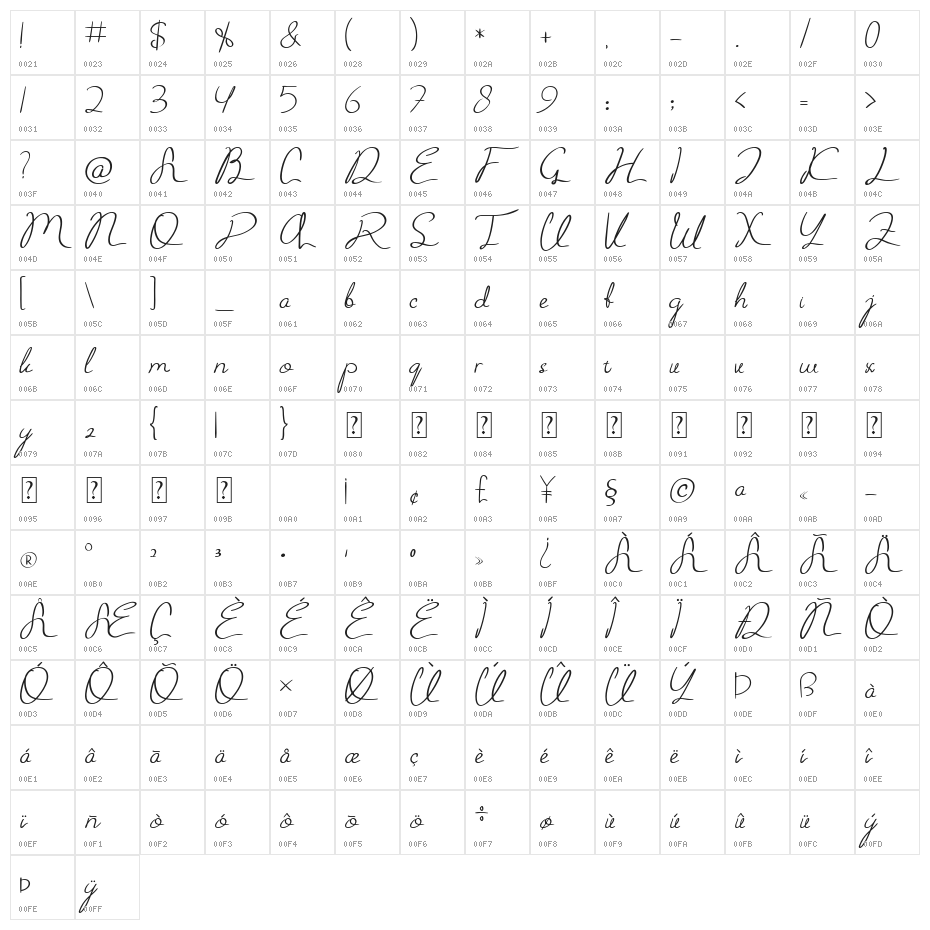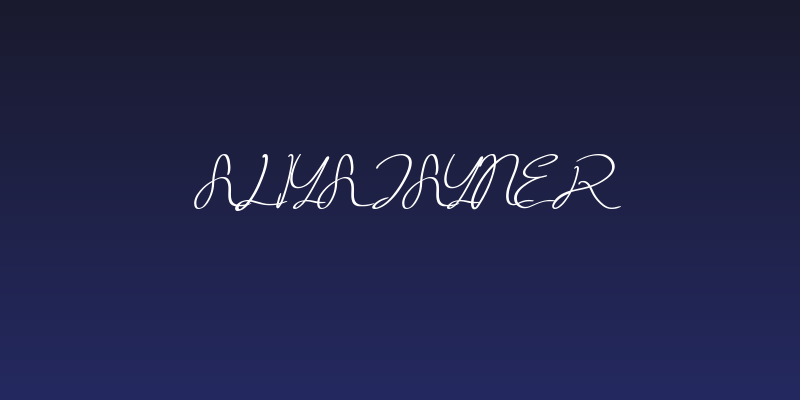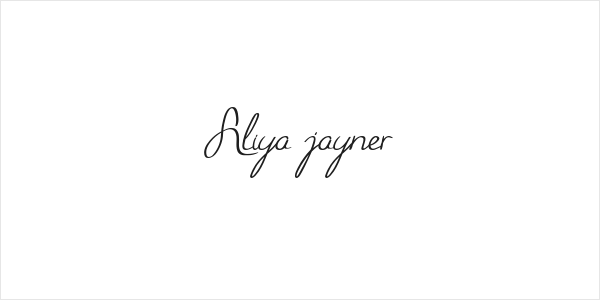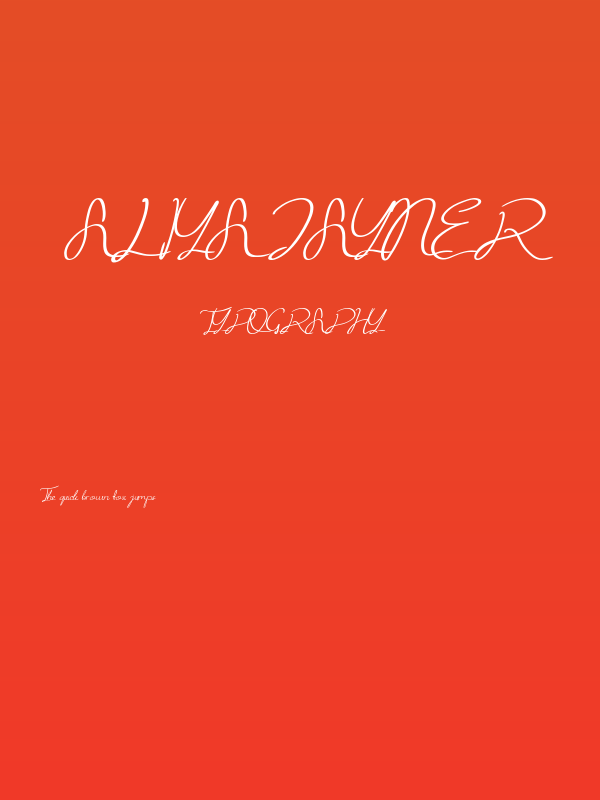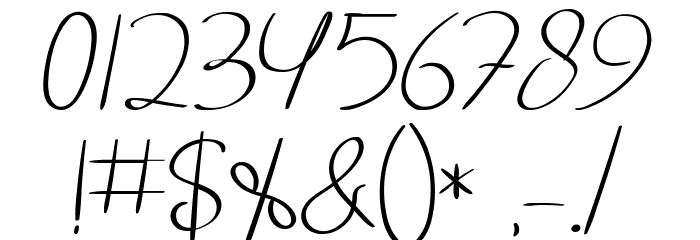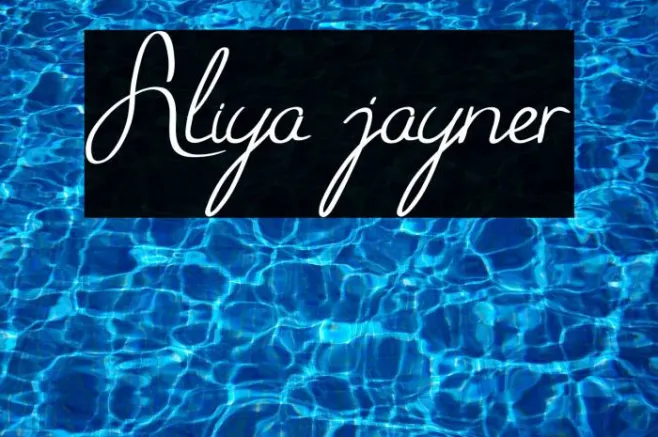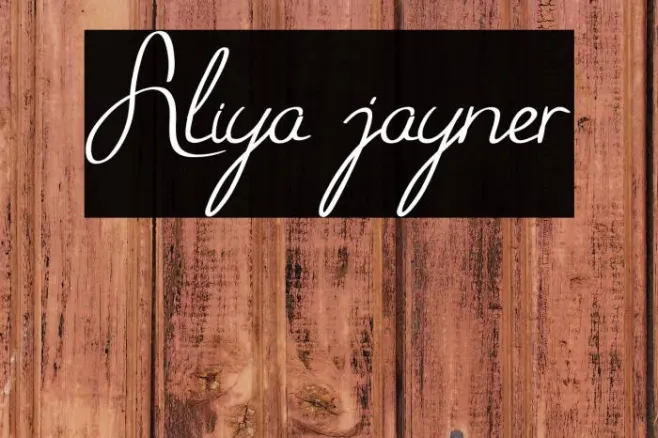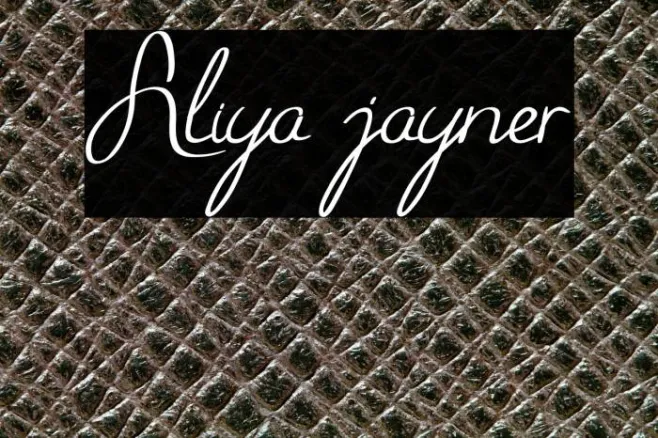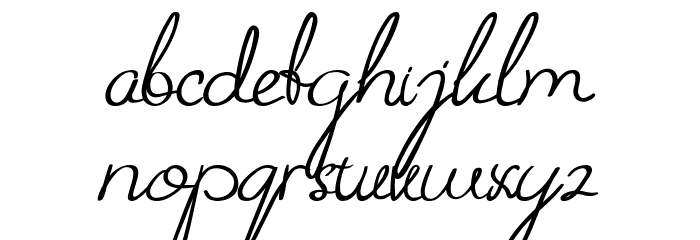
Aliya jayner Font
Aliya jayner Description
This font exudes elegance and fluidity, characterized by its cursive, handwritten style. The letters are interconnected with smooth, flowing lines, giving it a sophisticated and graceful appearance. The uppercase letters are slightly more elaborate, with extended loops and curves, while the lowercase letters maintain a consistent, flowing script. The numerals and special characters are designed to complement the alphabet, maintaining the same fluid style. This font is ideal for projects that require a personal touch or a sense of elegance, such as invitations, greeting cards, or branding materials.
| Use Case | Invitations, Branding, Stationery |
| Proposed Projects | Ideal for wedding invitations, personal branding, greeting cards, and elegant stationery. |